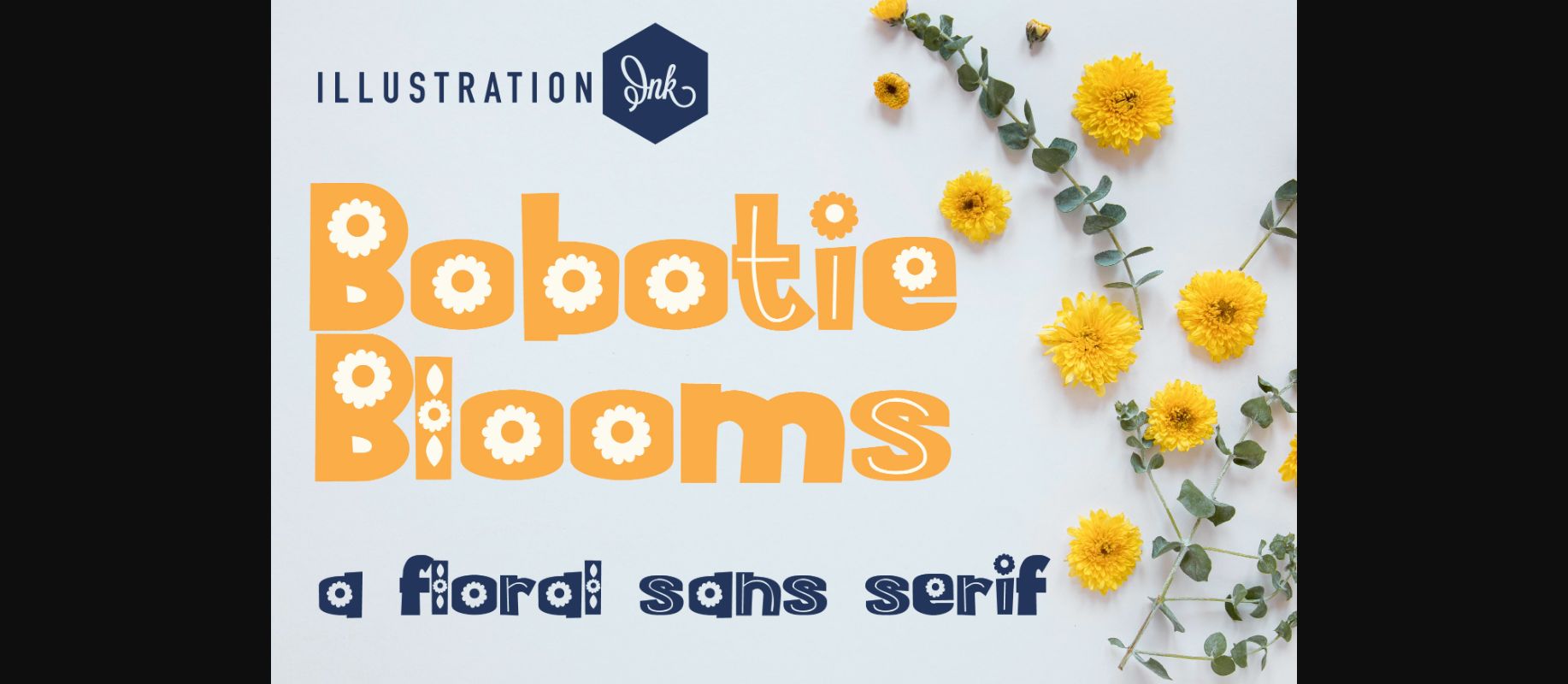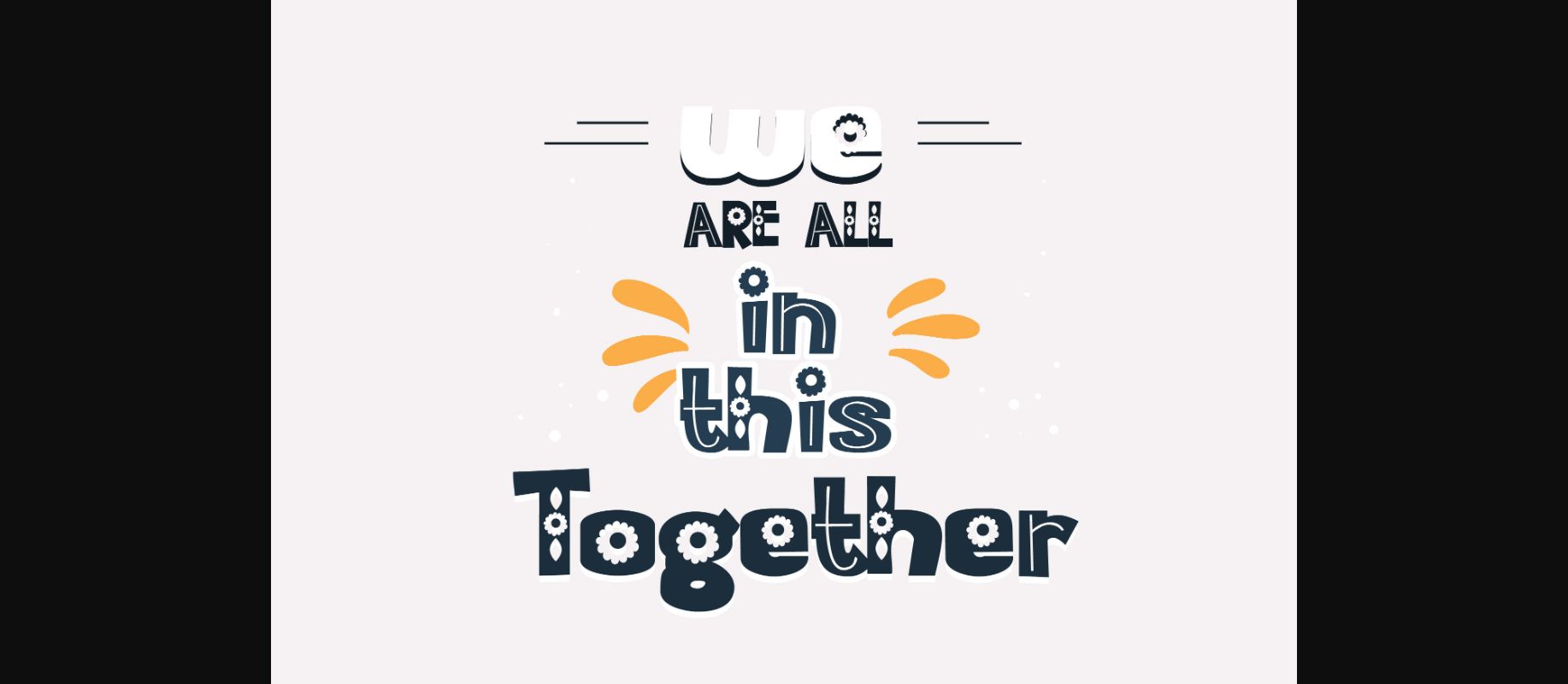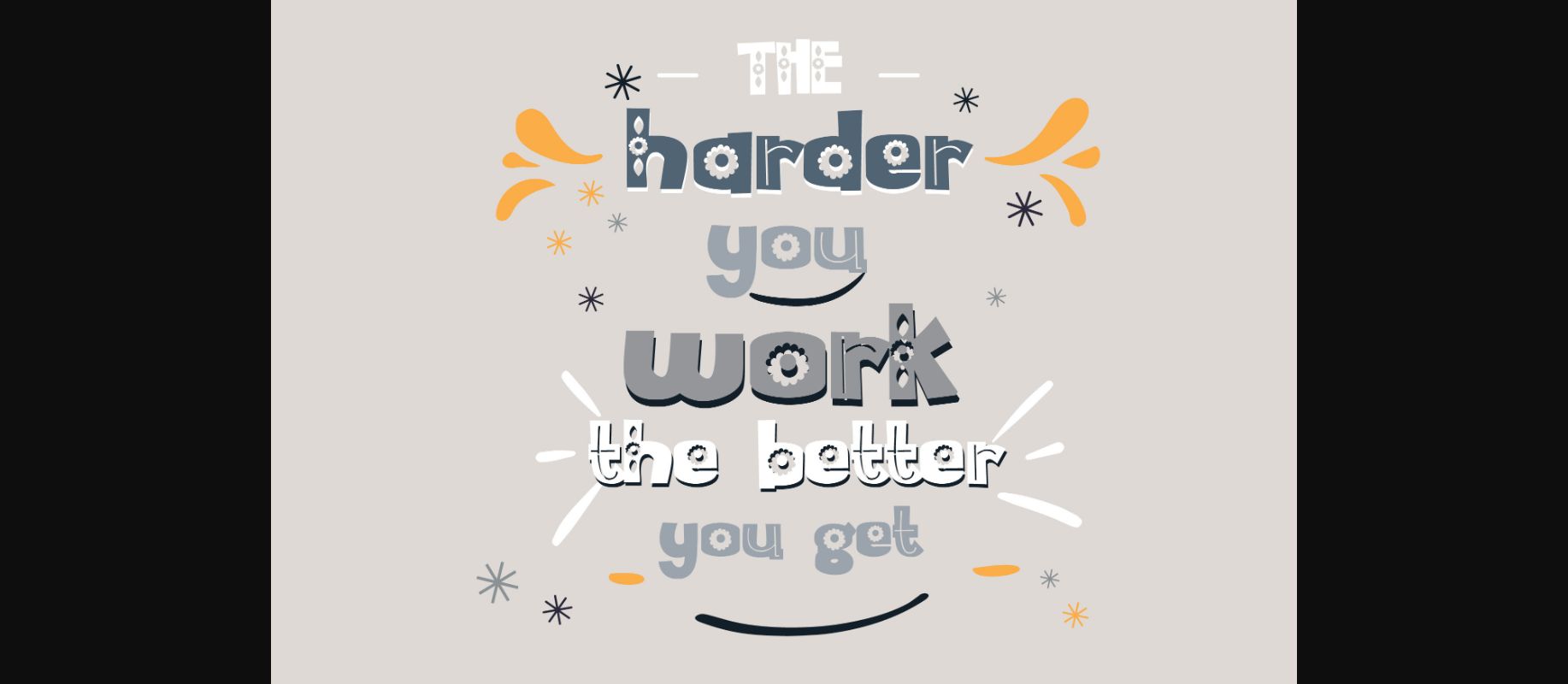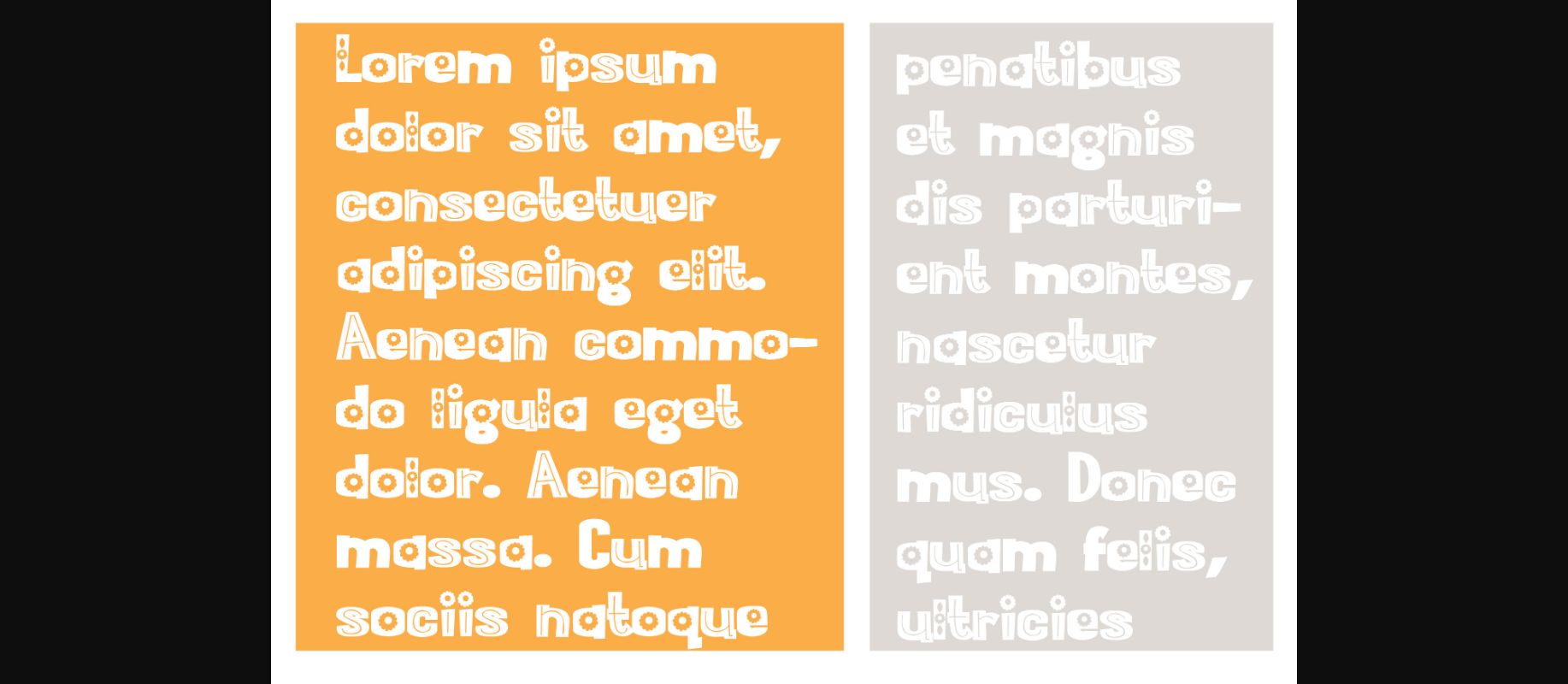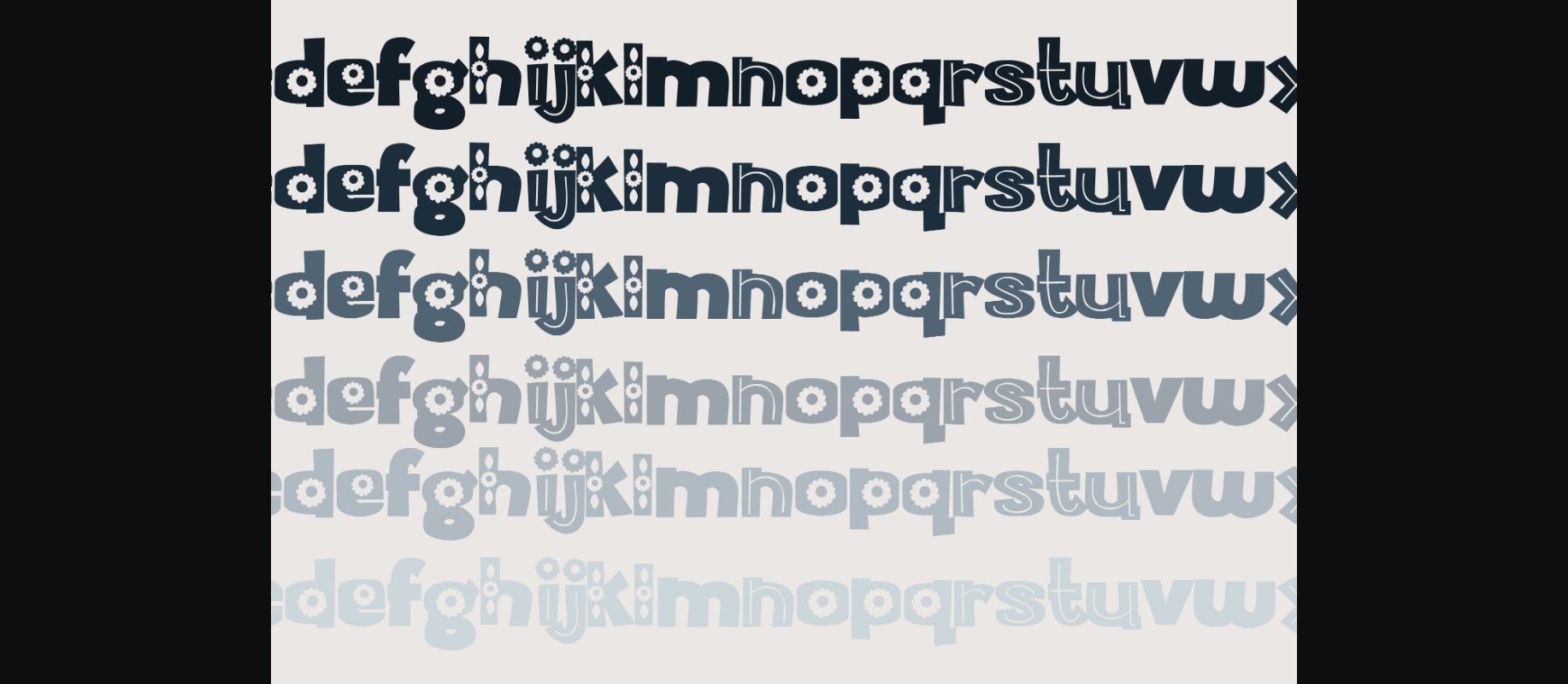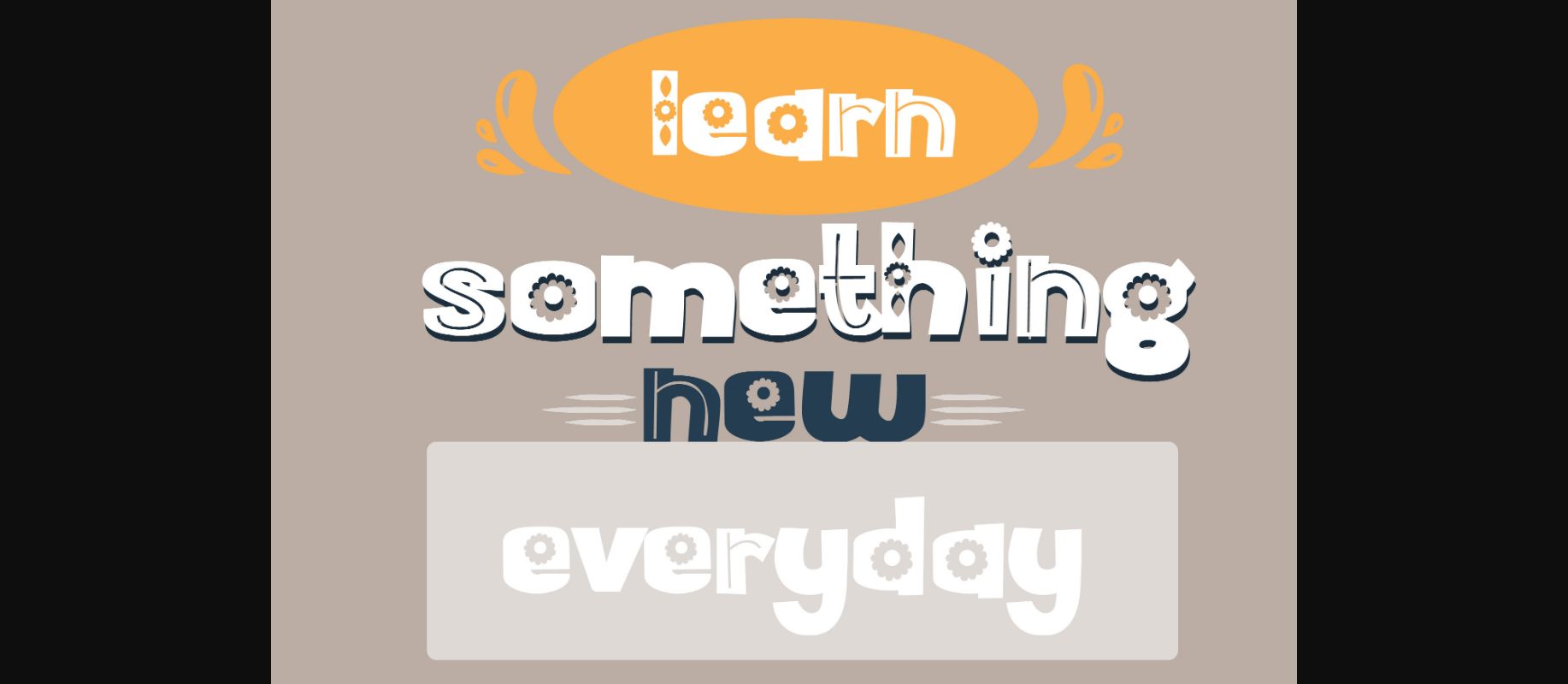
Bobotie Blooms Font
About Bobotie Blooms Font
This hand-written sans serif is boxy and sports flowers throughout. With this font, your messages will become really super cute. This font is perfect for posters, greeting cards, t-shirts, branding materials, quotes, and any other amazing projects you are working on.